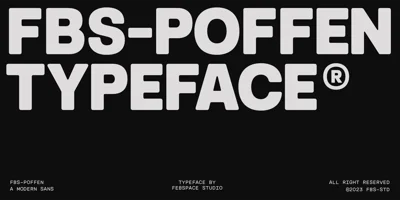
FBS Poffen Font
The FBS Poffen Font excels in various design applications including modern branding projects, contemporary logo design, digital advertising campaigns, tech startup communications, creative agency portfolios, minimalist web design, mobile app interfaces, social media graphics, poster design, and innovative print materials that demand cutting-edge typographic solutions with distinctive personality.
What makes the FBS Poffen Font exciting is its unique blend of geometric precision and organic fluidity that creates a truly distinctive visual identity. This typeface pushes typographic boundaries with its innovative character design, featuring unexpected curves and angles that maintain perfect readability while delivering exceptional visual impact. The font's forward-thinking aesthetic appeals to designers seeking to differentiate their projects from conventional typography, offering a fresh perspective that balances artistic expression with functional communication.
The FBS Poffen Font family typically includes multiple weight variations from light to heavy, often accompanied by complementary italic styles and extended character sets. These family members may feature stylistic alternates, special ligatures, and unique glyphs that provide designers with extensive creative possibilities for customizing typography to match specific brand personalities and design requirements.